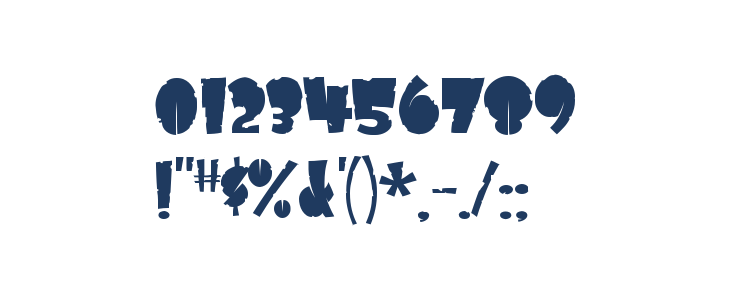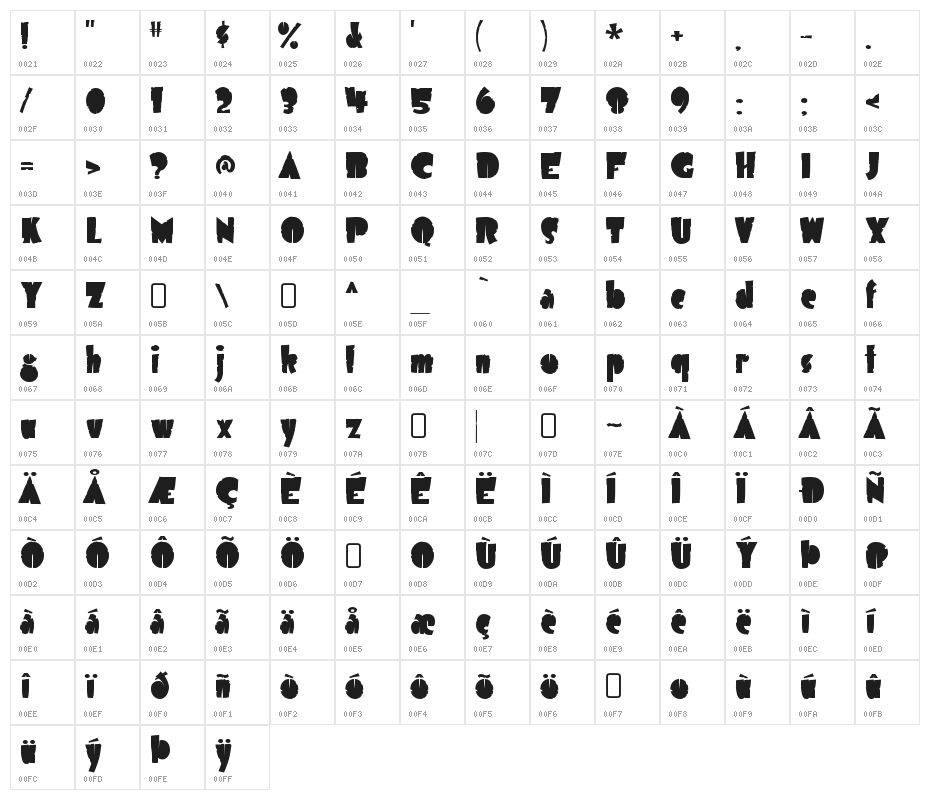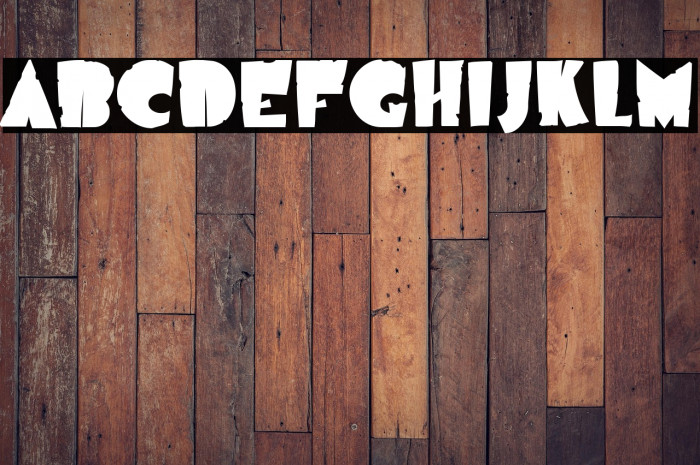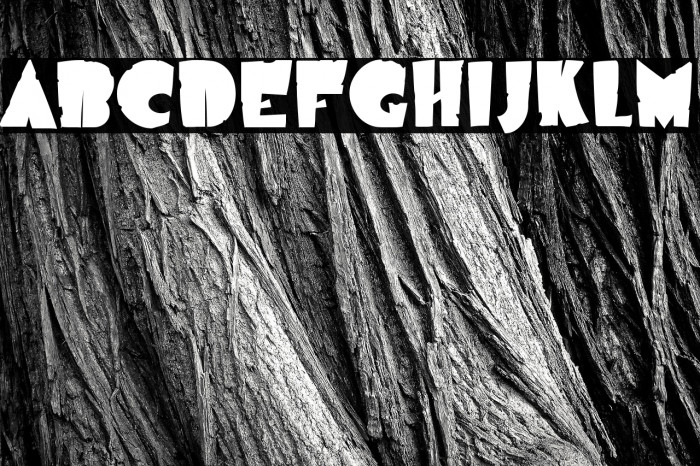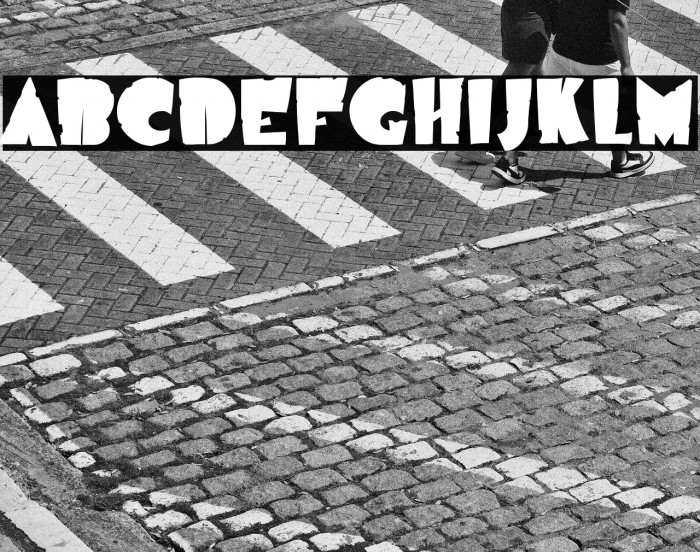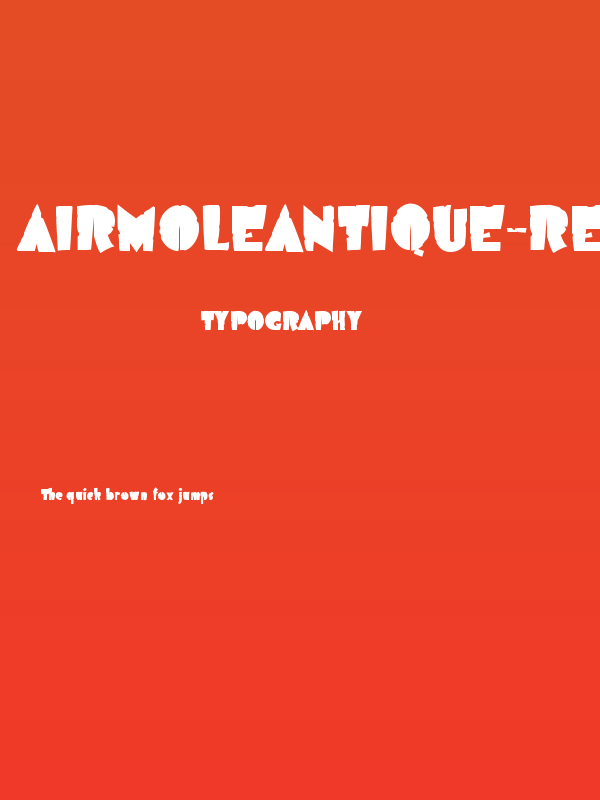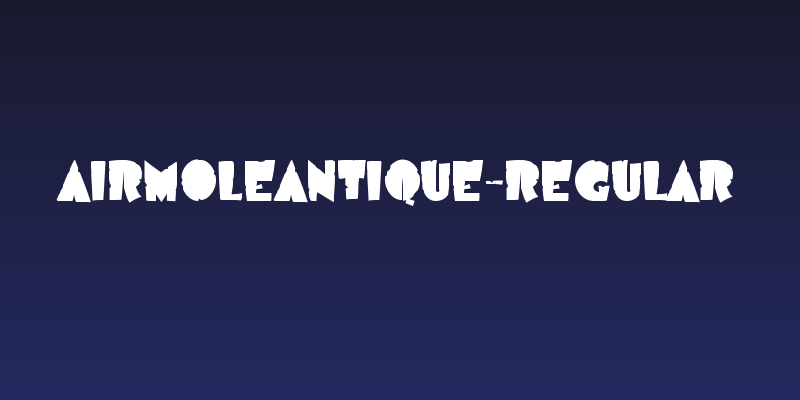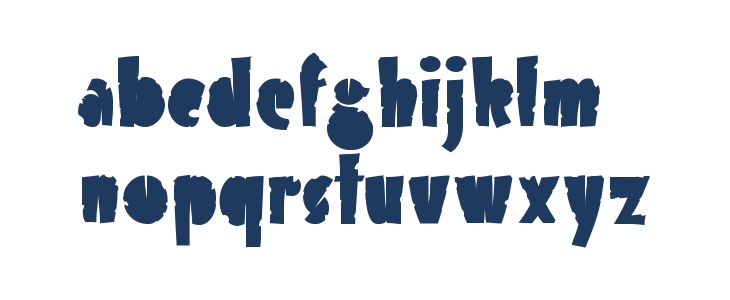
AirmoleAntique-Regular Font
AirmoleAntique-Regular Description
This font features a bold and dramatic style with a distinctly vintage flair. The characters are heavily stylized, with thick strokes and unique cut-out shapes that create a sense of movement and energy. The uppercase letters are particularly striking, with angular forms and sharp edges, while the lowercase letters maintain a consistent boldness. The numbers and special characters follow the same design principles, ensuring a cohesive look across all elements. This font's strong visual impact makes it ideal for attention-grabbing designs.
| Proposed Projects | Ideal for poster designs, retro-themed branding, album covers, and eye-catching headlines. |